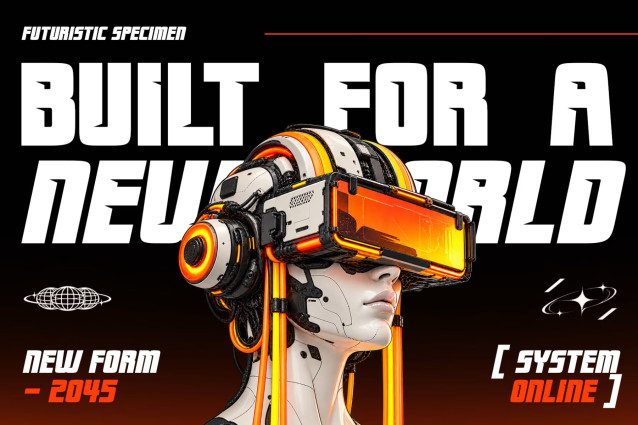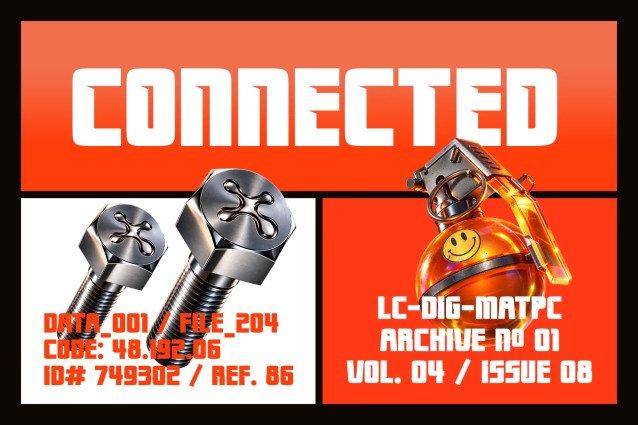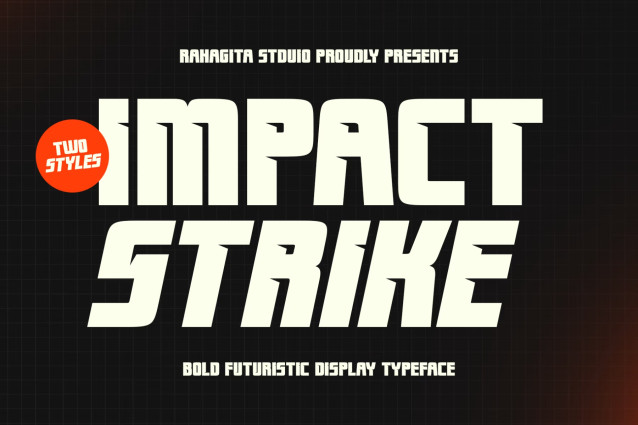
Impact Strike Font
Impact Strike is a bold, futuristic display typeface built from sharp geometry and confident, angular strokes. Designed to transform ordinary words into powerful visual statements, it delivers an unmistakable high-impact energy suited for tech, gaming, and sci-fi inspired visual identities.
Available in two distinct styles, Impact Strike gives you the flexibility to switch between a cleaner structured look and a sharper, more dynamic slanted variant, both built to command attention at any size.